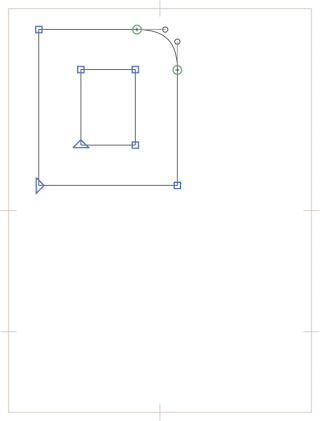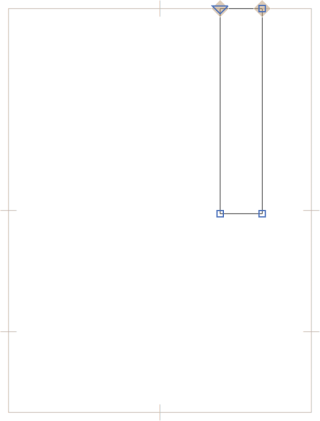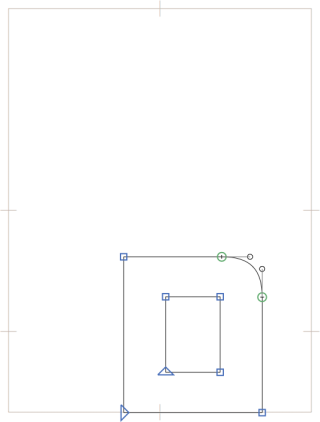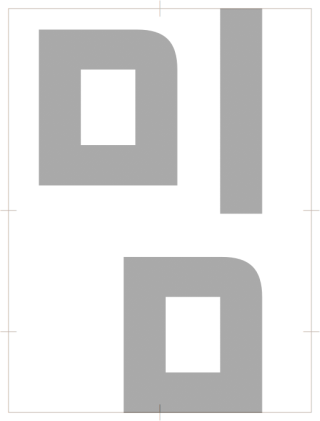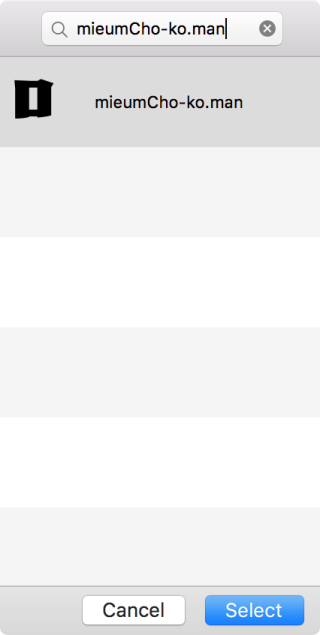
Creating a Hangeul font
Creating a new Korean font, with such a large character set, can seem like a daunting task—where to begin? This tutorial will give you all the tools to get started with Korean and show you the basics of creating a new Korean font in Glyphs.
If you’re already familiar with the Korean language feel free to jump ahead.
The Jamo alphabet
The Korean script is called Hangeul (or Hangul) and is comprised of syllables made up of component letters called Jamo. There are three categories of Jamo: Choseong (consonants at the start of a syllable), Jungseong (vowels in the middle of a syllable), and Jongseong (consonants at the end of a syllable).
Here are all the possible Jamo in modern Korean:
- Choseong (initial):
ᄀᄁᄂᄃᄄᄅᄆᄇᄈᄉᄊᄋᄌᄍᄎᄏᄐᄑᄒ - Jungseong (medial):
ㅏㅑㅓㅕㅗㅛㅜㅠㅡㅣㅐㅒㅔㅖㅘㅙㅚㅝㅞㅟㅢ - Jongseong (final):
ㄱㄲㄳㄴㄵㄶㄷㄹㄺㄻㄼㄽㄾㄿㅀㅁㅂㅄㅅㅆㅇㅈㅊㅋㅌㅍㅎ
For more information on these Jamo, how to pronounce them, and other information on Hangeul, please check out the wikipedia article.
Syllable construction
Hangeul syllables are constructed from Jamo in one of six ways depending on the vowel (Jungseong) used in the syllable:
White is the initial Choseong, yellow is the medial Jungseong, and dark gray is the final Jongseong.
These six different syllables are named based on their structure.
- Horizontal combination (initial consonant with vertical vowel).
- Vertical combination (initial consonant with horizontal vowel).
- Mixed combination (initial consonant with mixed vowel).
- Horizontal combination with a final consonant.
- Vertical combination with a final consonant.
- Mixed combination with a final consonant.
Let’s look at some example syllables:
You’ll note that the relative positions of the Choseong and Jungseong stay the same, regardless of the addition of a Jongseong.
Now that you’ve got a basic handle on Korean, let’s get started!
Korean and Unicode
Glyphs makes it simple to add all the Hangeul Unicode characters you need for your project. In the sidebar, under the Languages > Korean section, there are different subcategories:
- Jamo Compatibility: This is the Unicode block used to represent the Jamo in an isolated form.
- Choseong: These are the consonant Jamo in the initial position.
- Jungseong: These are the vowel Jamo in the medial position.
- Jongseong: These are the consonant Jamo in the final position.
Hangeul syllables are each represented with their own Unicode slots. There are two subcategories that you should consider.
- Basic Syllables: These are the core 2,780 Hangeul syllables based on the KS X 1001 standard and Adobe-KR standards. This is all you need for modern Korean typesetting, and probably what you want to have in your font as well. Trust me.
- All Syllables: These are the full set of syllables (11,172) for anything that could possibly ever occur.
Some other subcategories worth noting:
- Codepages > Adobe-KR: These entries cover the various Adobe-KR standards used for creating Korean fonts. Many major type foundries use these for their fonts.
- Codepages > KS X 1001 (Hanja): This category covers Chinese characters used for Korean text. These characters are not common in modern Korean use.
To add these subcategories to your font, right click on each to list all missing glyphs, press Cmd-A to select them all, and click Generate:
Basic syllable creation
Now let’s get down to drawing! For this example, let’s focus on the glyph 밈 mim-ko, a mixed combination syllable with a final consonant. To create this syllable, we’ll need four glyphs—three Jamo and the full syllable:
mieumCho-ko
iJung-ko
mieumJong-ko
mim-ko
If you don’t already have these glyphs in your font, you can either add them through the left sidebar Languages > Korean, or select Glyph > Add Glyphs… (Cmd-Shift-G) from the top menu and paste the names above in the box. Once you confirm the dialog, and ta-daa, all of the necessary glyphs are added to your font.
Hint: In Glyphs, all Korean glyphs are marked with the suffix
-ko. Additionally, to differentiate between which Jamo is at the start, middle, and end of a syllable, the abbreviationsChofor Choseong,Jungfor Jungseong, andJongfor Jongseong are used in the glyph name. For example,yiJung-kodenoting the vowel yi, ormieumCho-kodenoting the initial version of the consonant mieum.
Please open the mieumCho-ko glyph:
If you’ve used another program for Korean font development, or have created a Latin font in Glyphs, you may notice that the metric box looks different for Korean characters. Instead of the standard baseline, x-height, cap-height, and ascender values, CJK glyphs are displayed using the em-square with the midway points of the em-square marked as well as the font baseline. This enables you to consider positional alignment with other scripts without being distracted by unnecessary metrics.